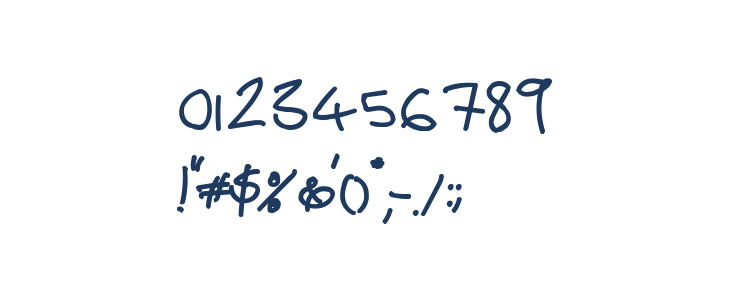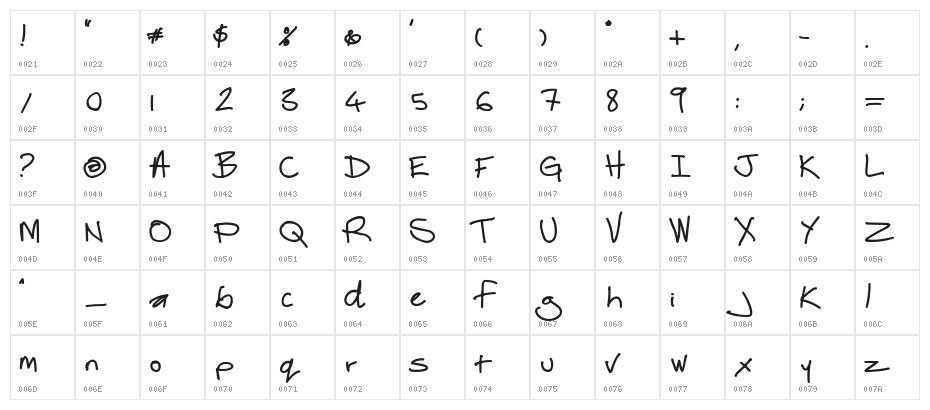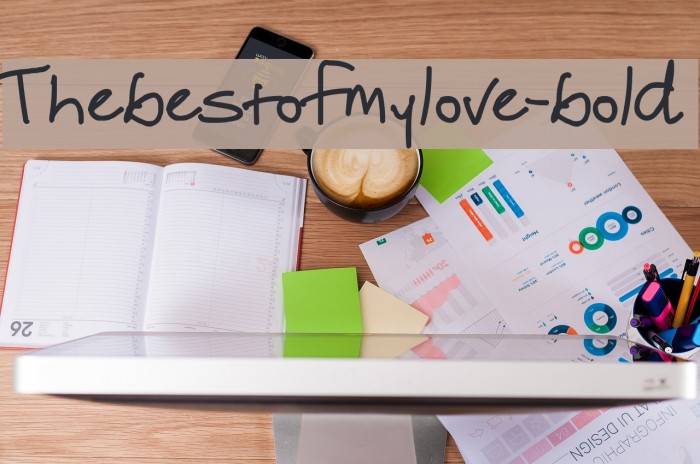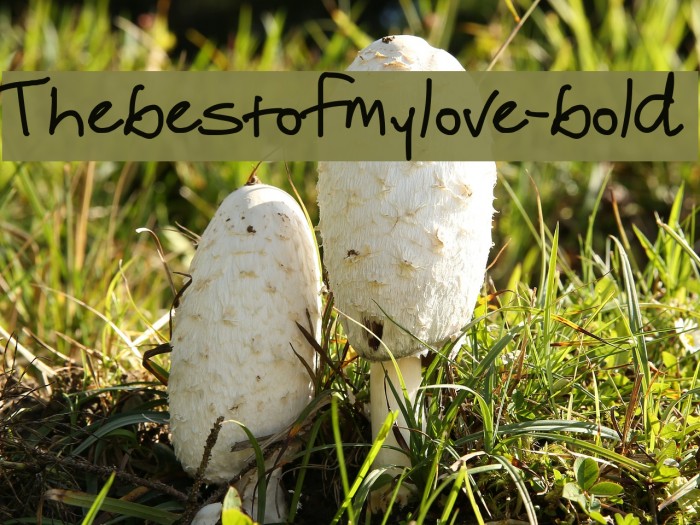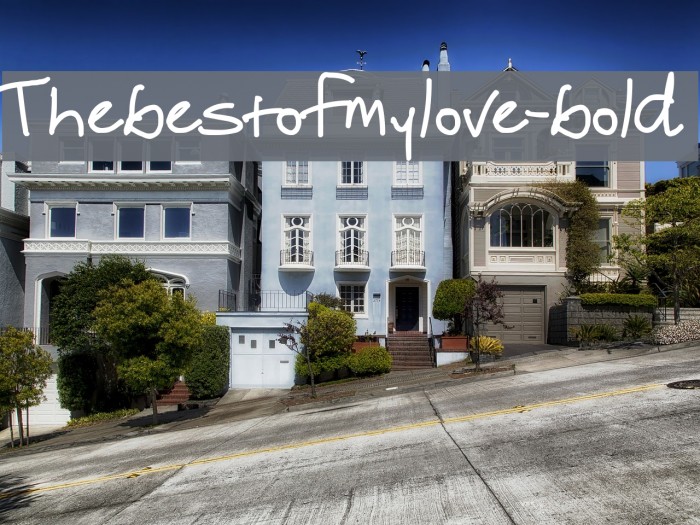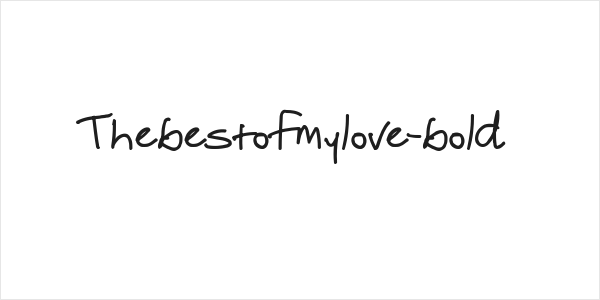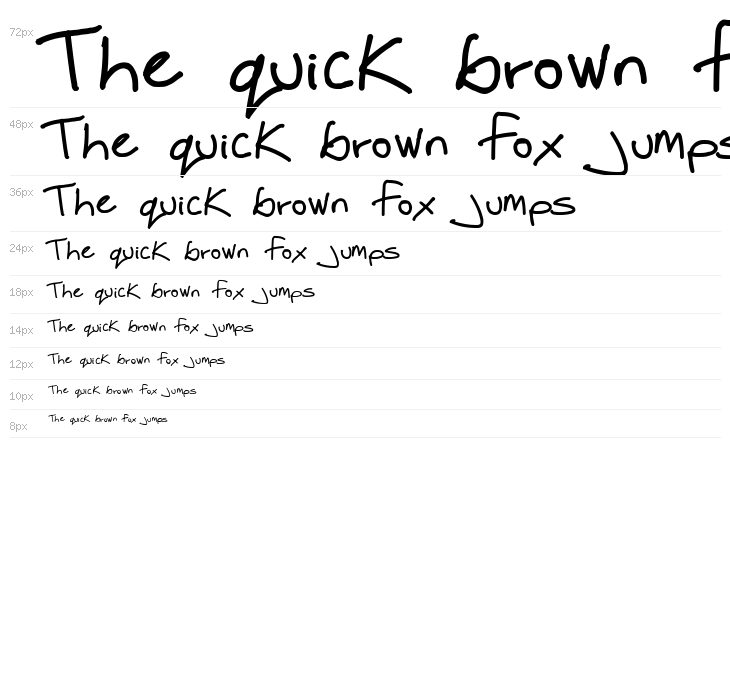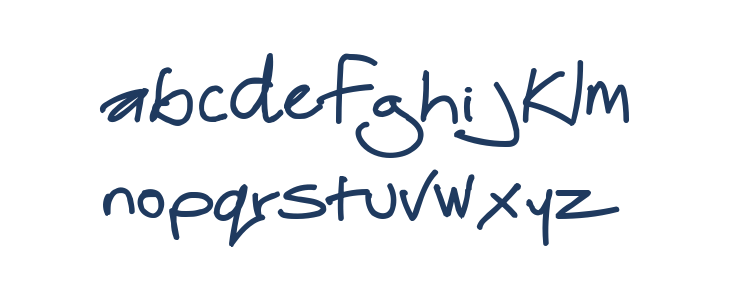
Thebestofmylove-bold Font
Thebestofmylove-bold Description
This font exudes a playful and casual handwritten style, characterized by its bold and slightly irregular strokes that mimic the natural flow of handwriting. The letters are well-spaced, allowing for easy readability while maintaining a personal touch. The uppercase and lowercase letters are distinct, with the uppercase being slightly more structured and the lowercase exhibiting more fluidity. Numbers and special characters are consistent with the overall style, ensuring a cohesive look across all text elements. This font is ideal for projects that require a friendly and approachable aesthetic.
Overall StyleCasual, Playful
Use CaseLogos, Headlines, Informal Text
Proposed ProjectsIdeal for greeting cards, personal branding, social media graphics, and informal invitations.